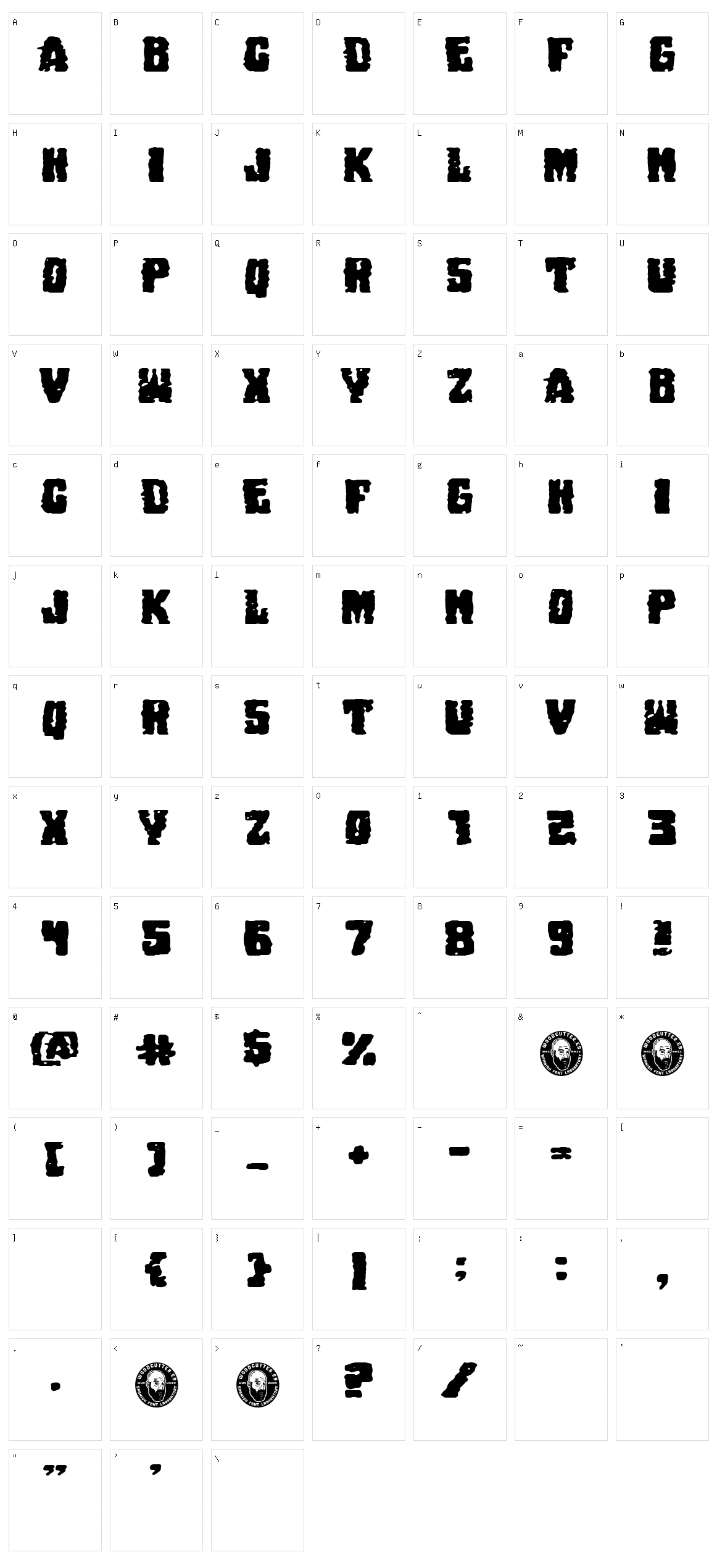
The free font Nightmare On Raval Streets is carefully designed by Woodcutter, showcasing a thoughtful balance of creativity and usability and falls under the Horror font style. When you download the ZIP file, it contains only 121.15 KB of font files, making it lightweight and quick to download. Please review the license details below to understand permitted usage and distribution rights. If license information is not available, we recommend using this font for personal projects only or contacting the author directly for commercial usage permissions.